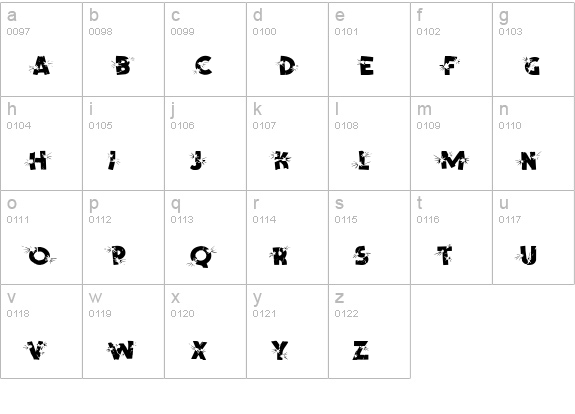
BLAST font is a stunning display typeface that exudes power and energy with its bold and dynamic design. Its sharp edges and strong presence make it perfect for headlines, posters, and any project that needs to make a statement. The unique characters of BLAST font will grab attention and leave a lasting impression on your audience. The best part is that BLAST font is available for free download at FontsMarket.com, making it easily accessible for designers and creatives looking to add a touch of boldness to their projects. Don't miss out on this striking font that will take your designs to the next level!